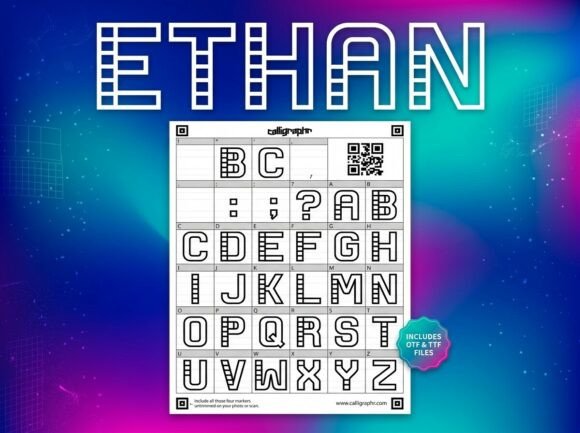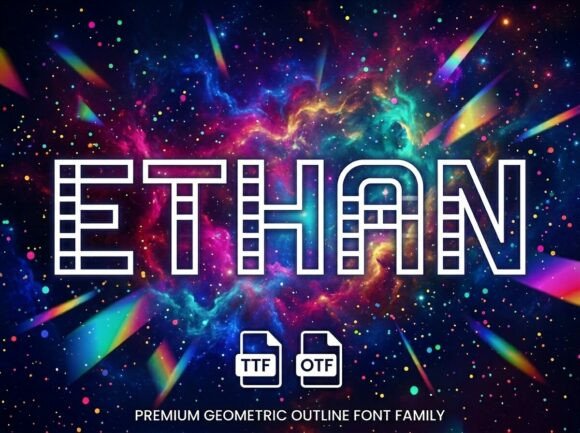
Introduction to Ethan Font
Have you ever stared at a screen, mesmerized by a retro video game or a synthwave music cover, and wished you could transport yourself to a bygone era of pixelated perfection? For designers, the thrill of capturing that essence lies in the typefaces that bring these nostalgic visions to life. Enter Ethan Font, a bold geometric display font that embodies the “high-score-retro” spirit like no other.
With its blocky, architectural letterforms and distinctive “film-strip” pattern, Ethan Font is more than just a design resource – it’s a key to unlocking a world of creative possibilities. Whether you’re working on an independent e-sports branding project or a retro-gaming event poster, Ethan Font’s high-quality design and versatility make it an invaluable asset for designers seeking to elevate their work.
Ethan Font
- Unique, modern design with a clean and elegant aesthetic, perfect for corporate branding, advertising, and editorial content.
Honest Review: Ethan Font
I recently had the chance to work with Ethan Font, a popular font designed for creative projects. I was immediately drawn to its modern and sleek aesthetic, perfect for a wide range of applications.
- ✨ High quality design that looks great on both digital and print materials
- ✨ Easy to read and understand, even at small font sizes
- ✨ Transparent background, allowing for seamless integration with other design elements
- ⚠️ Limited font weights and styles, which may not be ideal for complex design projects
- ⚠️ Not all characters are supported, which can cause issues with certain languages
Tips for Getting the Most Out of Ethan Font
Use Ethan Font on a transparent background to create a high-quality design. This font is perfect for creative projects, such as logo designs or social media graphics. You can also use it in combination with other design resources to create a unique look.
Ethan Font is a versatile font that can be used in a variety of creative projects, including logos, business cards, and social media graphics. It’s also a great option for designers who want a high-quality font with a transparent background.